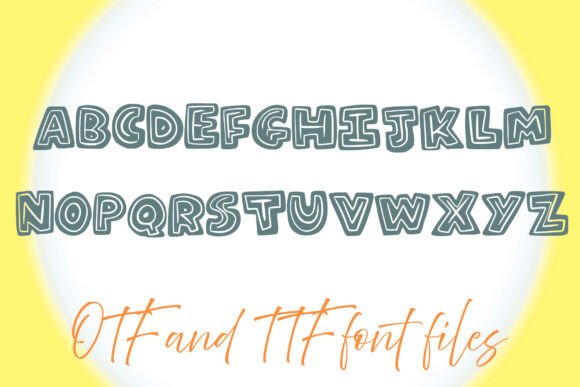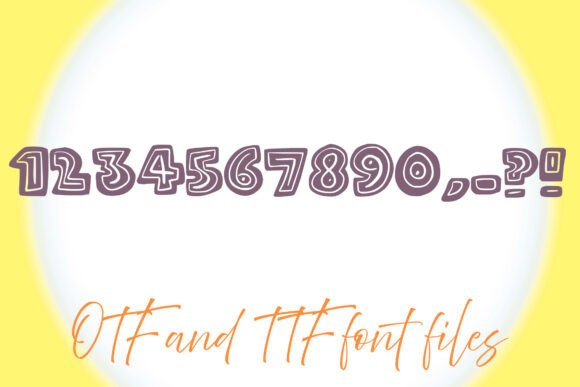
Introducing Chunky Swirl Font: Add a Playful Touch to Your Designs
Are you looking for a font that can bring fun and energy to your projects? Look no further than Chunky Swirl, a lively and bold outline font that’s perfect for designers and crafters who want to add a playful touch to their work. With its hand-drawn, bubbly aesthetic and layered outline effects, Chunky Swirl is ideal for a wide range of applications, from children’s designs to comics, posters, social media graphics, and creative branding.
The Unique Characteristics of Chunky Swirl Font
Chunky Swirl is a one-of-a-kind font that’s designed to make your text stand out with personality. Its chunky, swirly letters are carefully crafted to give your designs a retro-inspired look or a playful modern touch. The font’s hand-drawn aesthetic gives it a friendly, approachable feel that’s perfect for designs that need to connect with a younger audience. The layered outline effects add depth and dimension to the letters, making them pop off the page.
Perfect for Children’s Designs
Chunky Swirl is a natural fit for children’s designs, such as kids’ party invitations, educational materials, and activity sheets. The font’s playful, energetic vibe is sure to delight kids and parents alike. You can use Chunky Swirl to create eye-catching titles, headings, and captions that will make your designs stand out. Whether you’re creating a children’s book, a worksheet, or a flyer, Chunky Swirl is the perfect choice.
Great for Comics and Graphic Novels
If you’re a comic book artist or graphic novelist, you’ll love Chunky Swirl’s bold, dynamic look. The font’s chunky letters and layered outline effects are perfect for creating eye-catching titles, captions, and dialogue bubbles. You can use Chunky Swirl to add a playful touch to your comic book pages or graphic novels, making them more engaging and fun to read.
Ideal for Posters and Social Media Graphics
Chunky Swirl is also great for creating posters, social media graphics, and other visual materials that need to grab attention. The font’s bold, energetic look is perfect for headlines, titles, and captions that need to stand out. You can use Chunky Swirl to create posters for events, promotions, or products, or to create engaging social media graphics that will get noticed.
Creative Branding and Packaging
If you’re looking for a font that can help you create a unique brand identity, Chunky Swirl is a great choice. The font’s playful, energetic vibe is perfect for brands that want to convey a sense of fun and creativity. You can use Chunky Swirl to create logos, packaging, and marketing materials that will help you stand out from the competition.
Tips for Using Chunky Swirl Font
Here are a few tips for getting the most out of Chunky Swirl font:
- Use Chunky Swirl for headlines, titles, and captions to add a playful touch to your designs.
- Experiment with different colors and textures to give your designs a unique look.
- Pair Chunky Swirl with other fonts to create a contrasting look that’s both fun and sophisticated.
- Don’t be afraid to get creative and try out new and unusual design ideas!
Chunky Swirl font is a versatile and fun font that’s perfect for designers and crafters who want to add a playful touch to their work. With its hand-drawn, bubbly aesthetic and layered outline effects, Chunky Swirl is ideal for a wide range of applications, from children’s designs to comics, posters, social media graphics, and creative branding. Whether you’re looking for a retro-inspired look or a playful modern touch, Chunky Swirl is the perfect choice. So why wait? Download Chunky Swirl today and start creating fun and engaging designs that will stand out from the crowd!